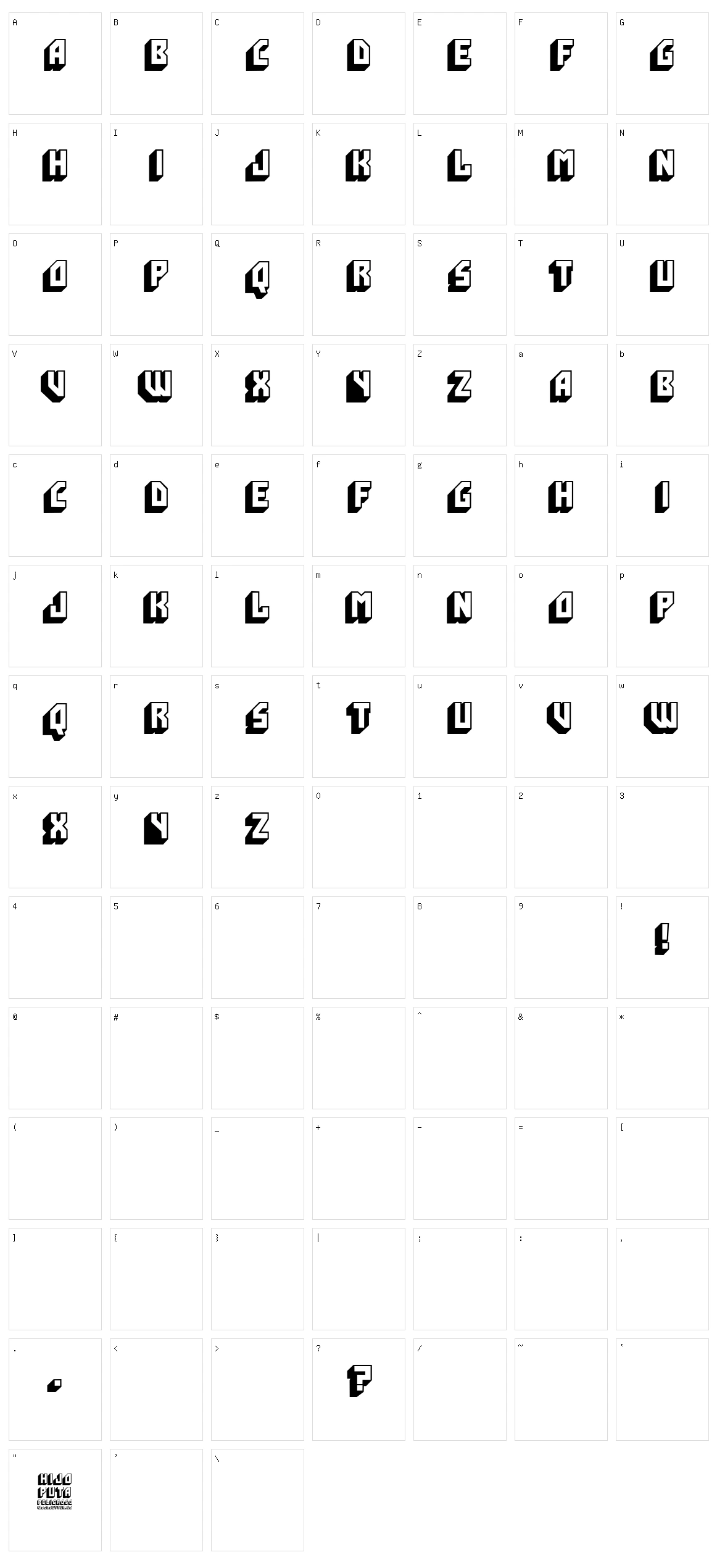
The free font Hijo Puta Peligroso is carefully designed by Woodcutter, showcasing a thoughtful balance of creativity and usability and falls under the Square font style. When you download the ZIP file, it contains only 8.36 KB of font files, making it lightweight and quick to download. Please review the license details below to understand permitted usage and distribution rights. If license information is not available, we recommend using this font for personal projects only or contacting the author directly for commercial usage permissions.